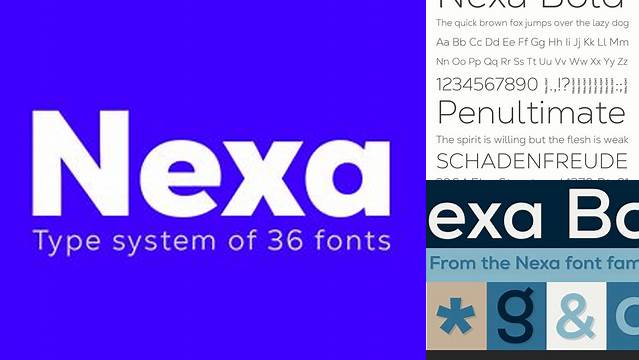
Nexa Bold Font: Why It's a Design Powerhouse
Alright, first things first: why is the Nexa Bold font such a big deal? Well, the Nexa font family, in general, is a versatile collection of fonts. Nexa Bold, specifically, is a strong, attention-grabbing variant within this family. It's characterized by its clean lines, geometric shapes, and a certain confident presence that makes it perfect for headlines, branding, and any design where you want to make a statement. The boldness adds emphasis without being overwhelming, and its modern aesthetic ensures your designs feel current and stylish. Because of its versatility, Nexa Bold can work in so many different contexts. Imagine using it for a sleek website header, a striking poster, or even a professional-looking logo. It's also incredibly legible, even at smaller sizes, making it ideal for body text in certain applications. The Nexa Bold font isn't just a typeface; it's a design tool that can help you communicate effectively and make a lasting impression. Its popularity stems from its ability to blend functionality with aesthetics, offering designers a reliable and visually appealing option. This makes Nexa Bold a cornerstone for many designers and a go-to choice when aiming for impact and clarity. If you're aiming for a modern look, this one is the perfect choice.
Unpacking the Design DNA of Nexa Bold
Let's get nerdy for a sec and talk about what makes Nexa Bold tick. It's a sans-serif font, meaning it lacks the small strokes (serifs) at the ends of the letters. This absence contributes to its clean and contemporary feel. The letterforms are meticulously crafted, with a focus on geometric precision. You'll notice the balanced proportions and consistent weight, which give it a sense of harmony and readability. Nexa Bold isn't overly stylized or fussy; it's about clarity and impact. These qualities make it suitable for both digital and print applications. Its design DNA is rooted in modern typography principles, emphasizing legibility and visual appeal. Think about it: every curve, every angle is carefully considered to create a cohesive and effective visual experience. The choice of a bold weight further amplifies its impact, ensuring it grabs the viewer's attention. It's the perfect balance of boldness and elegance that makes Nexa Bold a winner. Nexa Bold's design is its most appealing feature.
Practical Applications: Where Nexa Bold Shines
So, where can you actually use the Nexa Bold font? The answer is, pretty much everywhere! Because it is so versatile, the possibilities are endless. It's a fantastic choice for headings in websites, brochures, and presentations. It adds a touch of authority and catches the eye immediately. It also works exceptionally well in branding, particularly for logos and taglines. Its bold presence makes it memorable and helps to establish a strong visual identity. Nexa Bold is also suitable for display text on social media posts, creating visually striking graphics. You can also use this font on posters, flyers, and other promotional materials. Think about it: It is perfect for call-to-action buttons, making them stand out and encouraging user engagement. From digital to print, from professional to creative projects, Nexa Bold adapts seamlessly. The key is understanding how to use it effectively within different contexts to get the best results. This font is a must-have in your font arsenal.